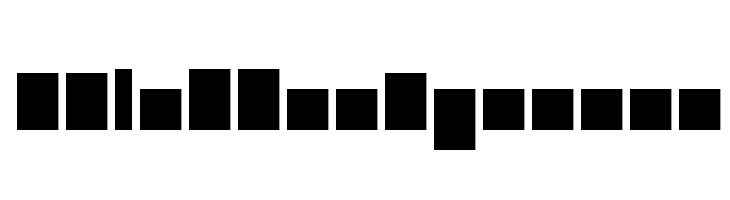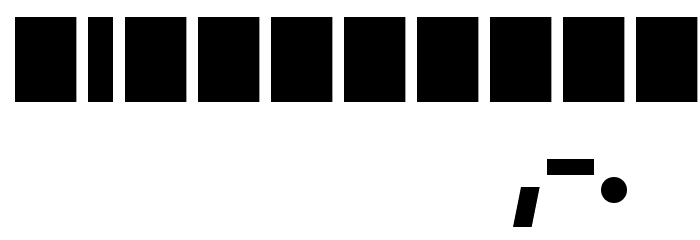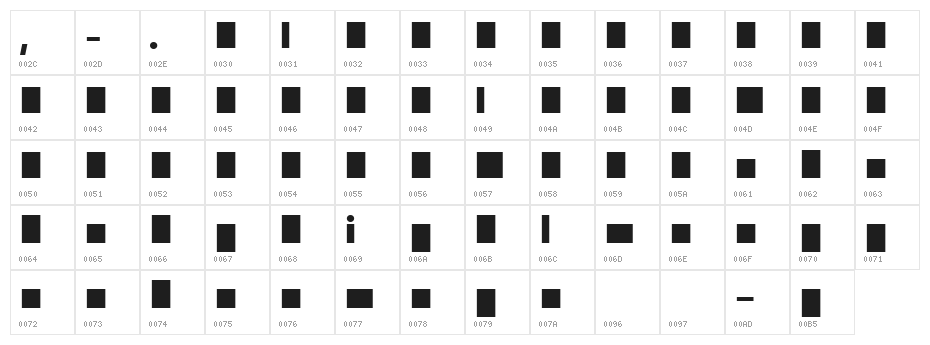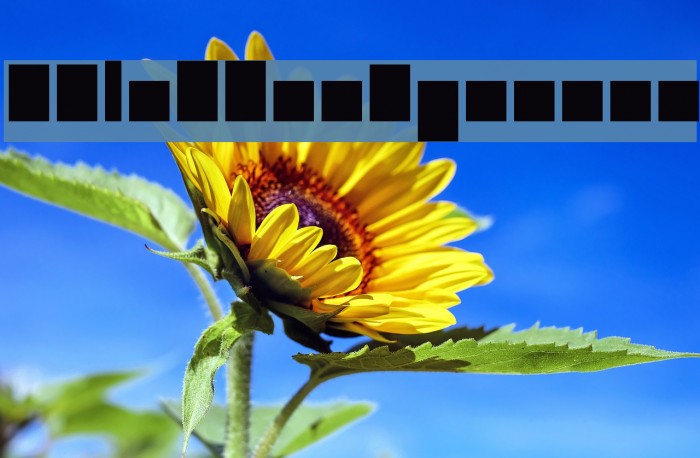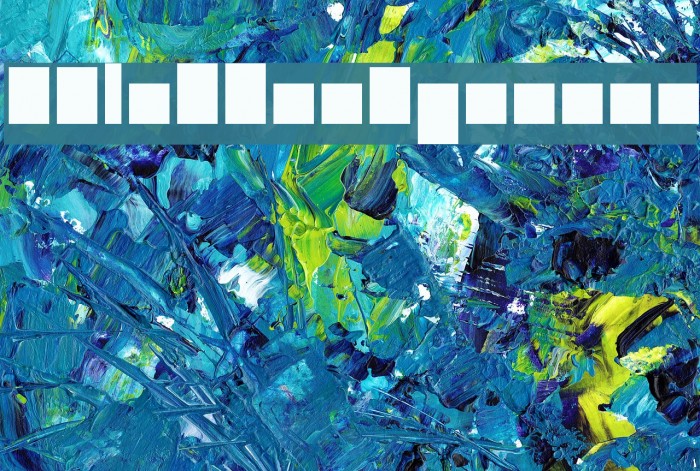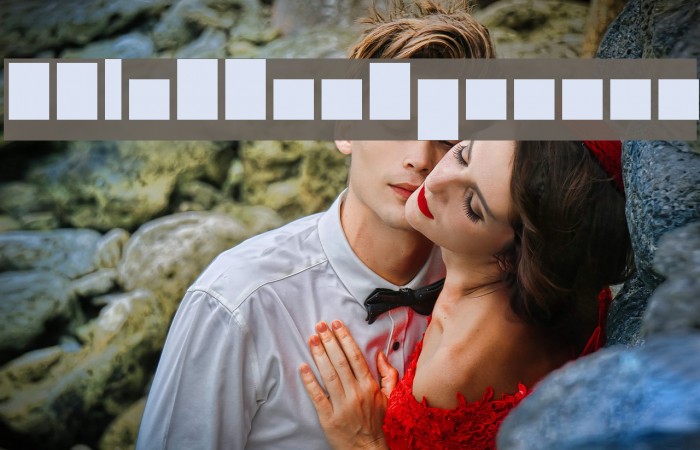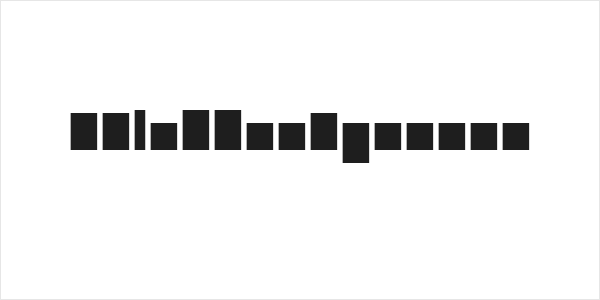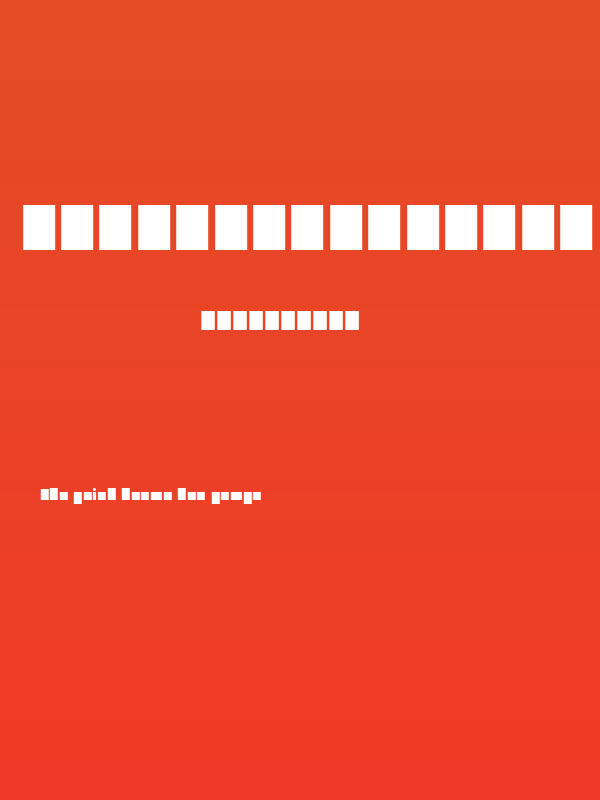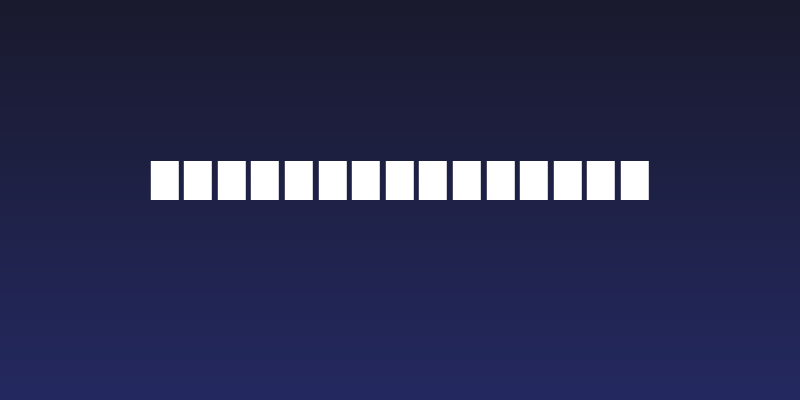
BPletterSquares Font
BPletterSquares Description
This font is characterized by its bold, geometric design, where each character is encapsulated within a perfect square. The style is reminiscent of pixel art, with each letter and number appearing as a solid black square with minimal spacing between them. The uniformity of the squares creates a cohesive and structured appearance, making it ideal for digital displays or retro-themed projects. The font lacks any curves or embellishments, focusing instead on a straightforward, blocky aesthetic that emphasizes clarity and simplicity. Its unique design makes it stand out, especially in contexts where a modern, digital look is desired.